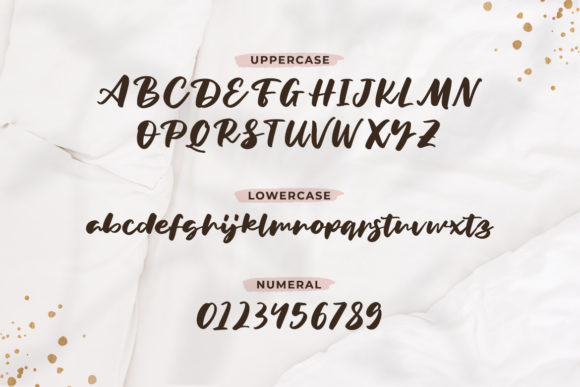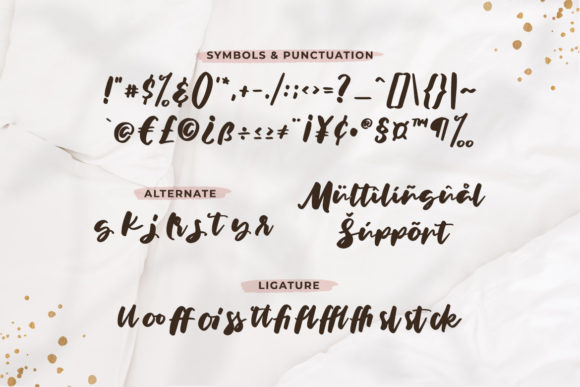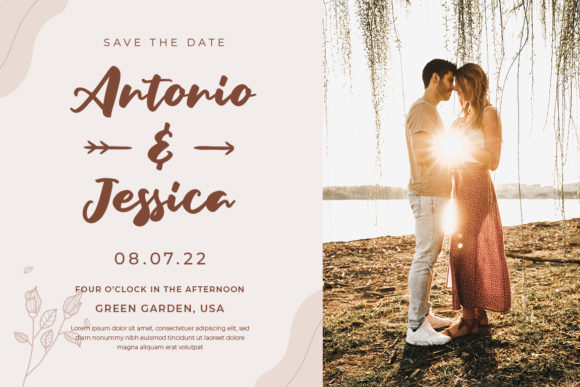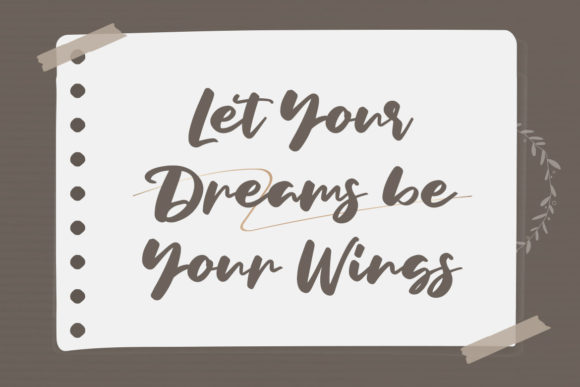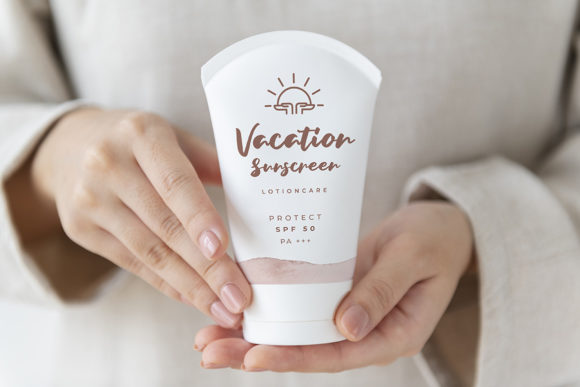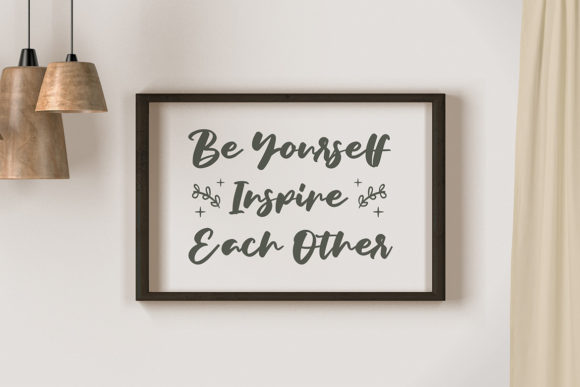
Introduction to Rekan Font
Rekan is a magical script font carefully created with a touch of elegance.
Key Features of Rekan Font
Why Choose Rekan Font?
Rekan Font offers exceptional quality and versatility, making it a valuable addition to your design toolkit. Whether you’re creating for personal projects or commercial use, Rekan Font delivers professional results.